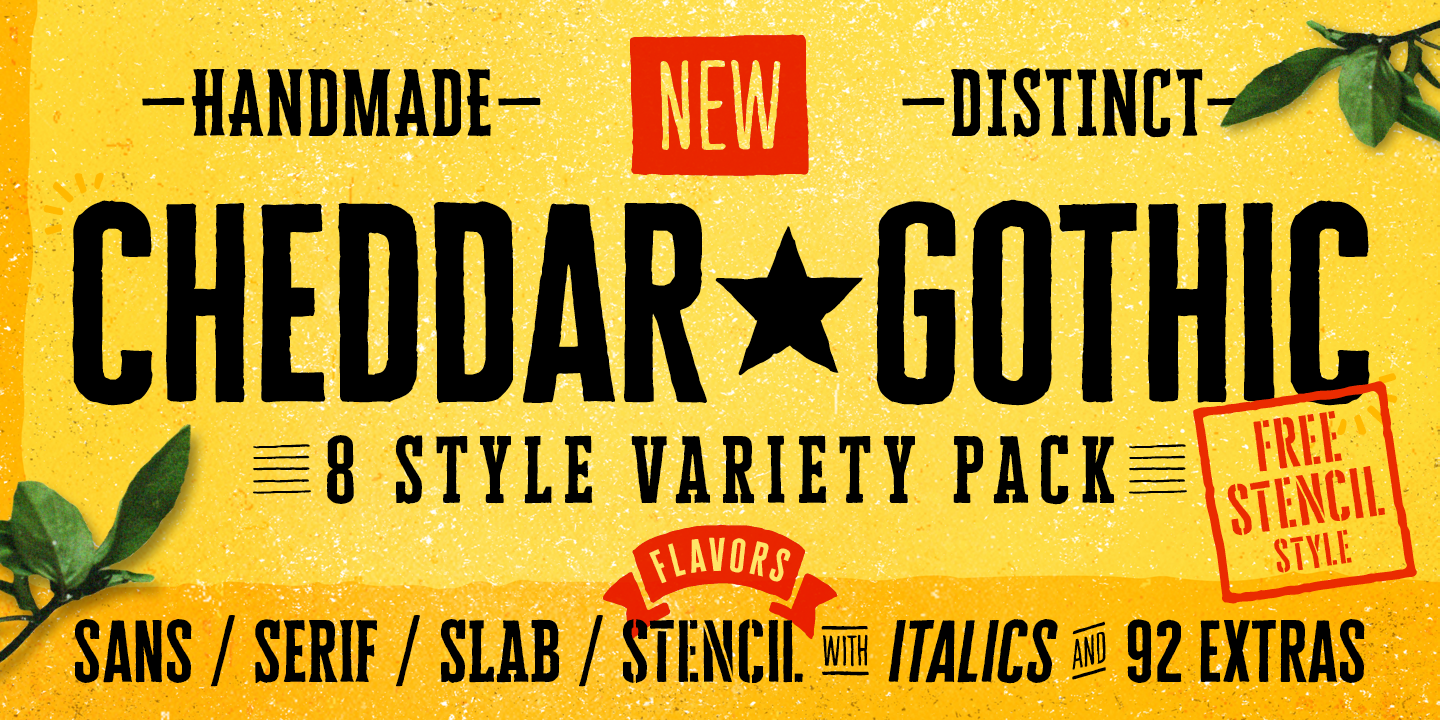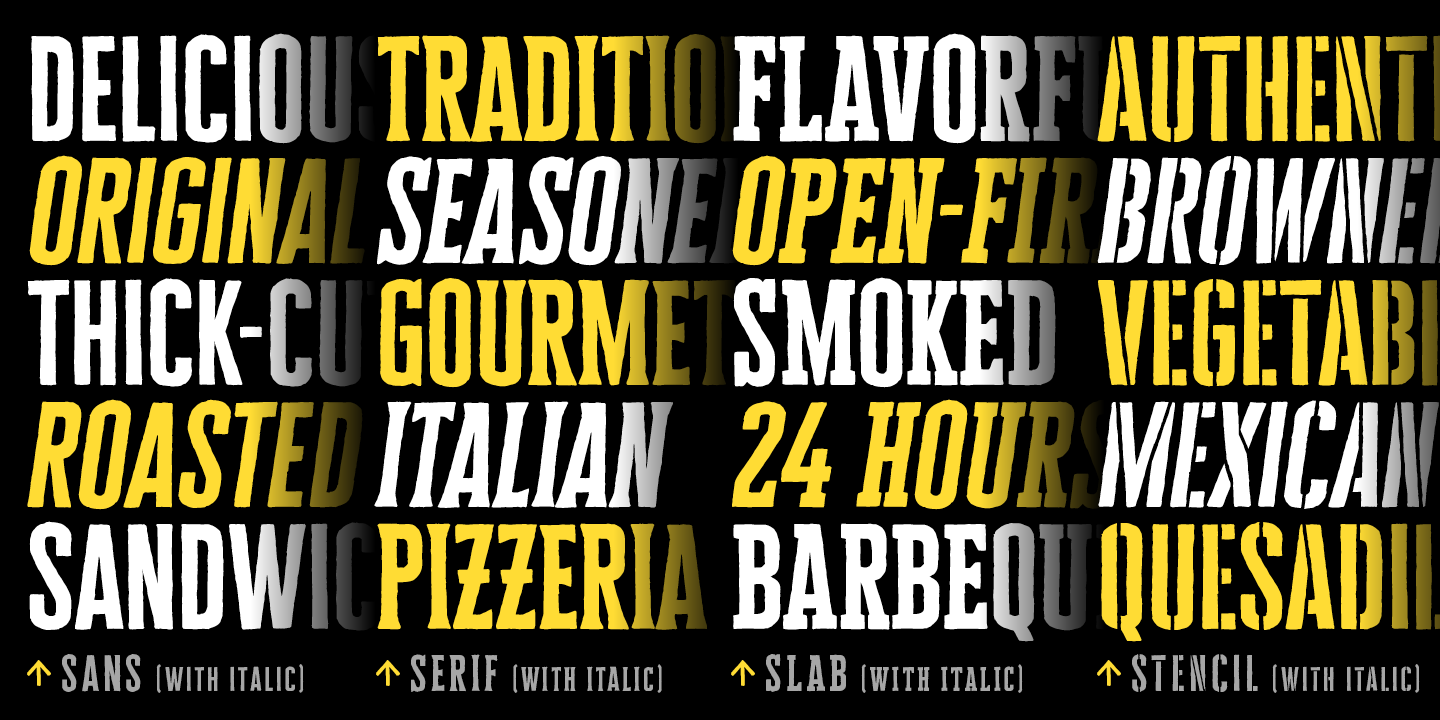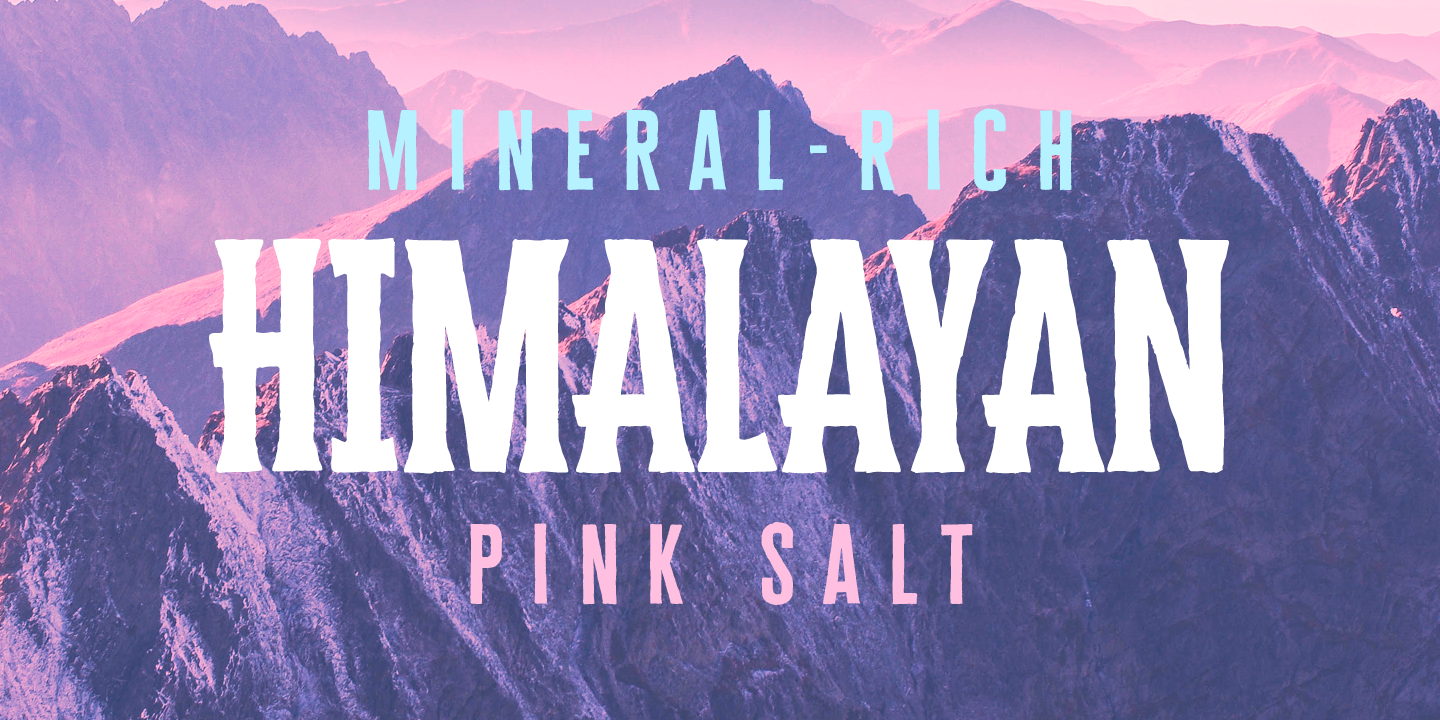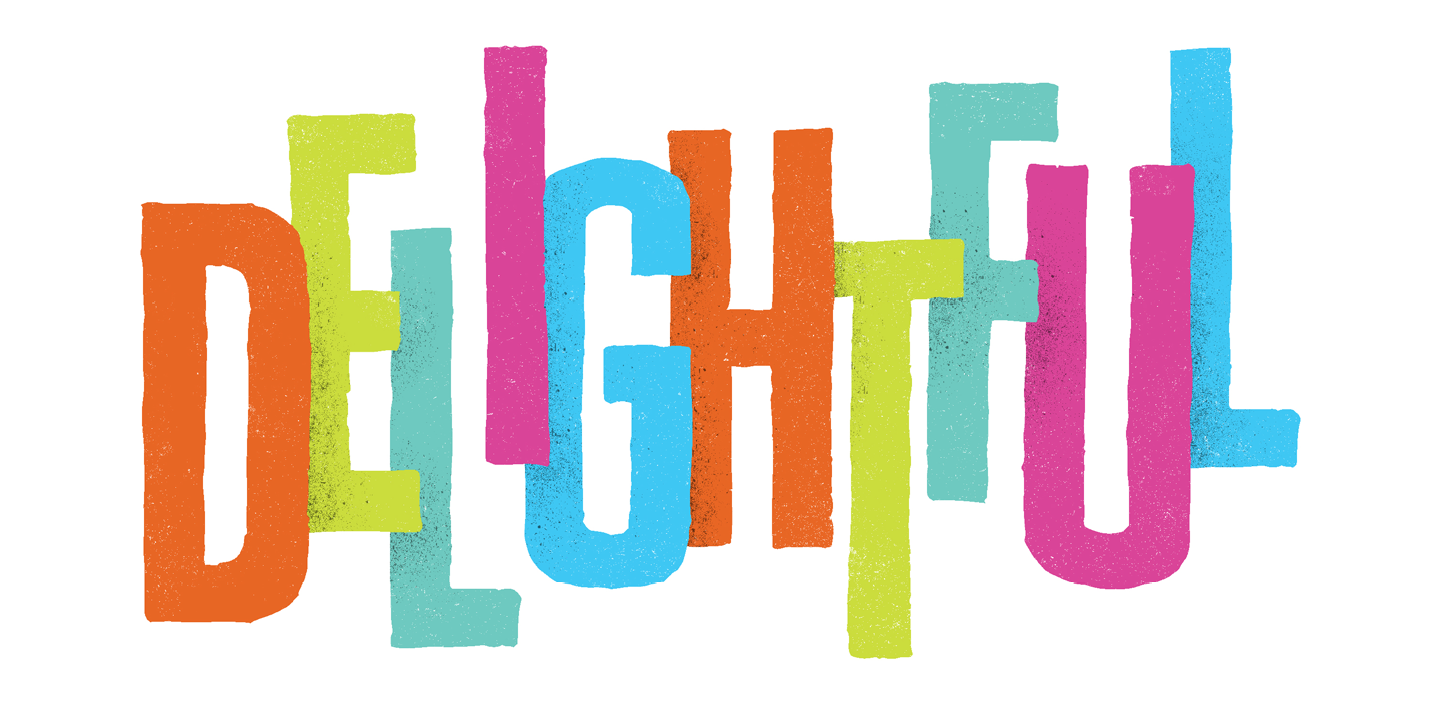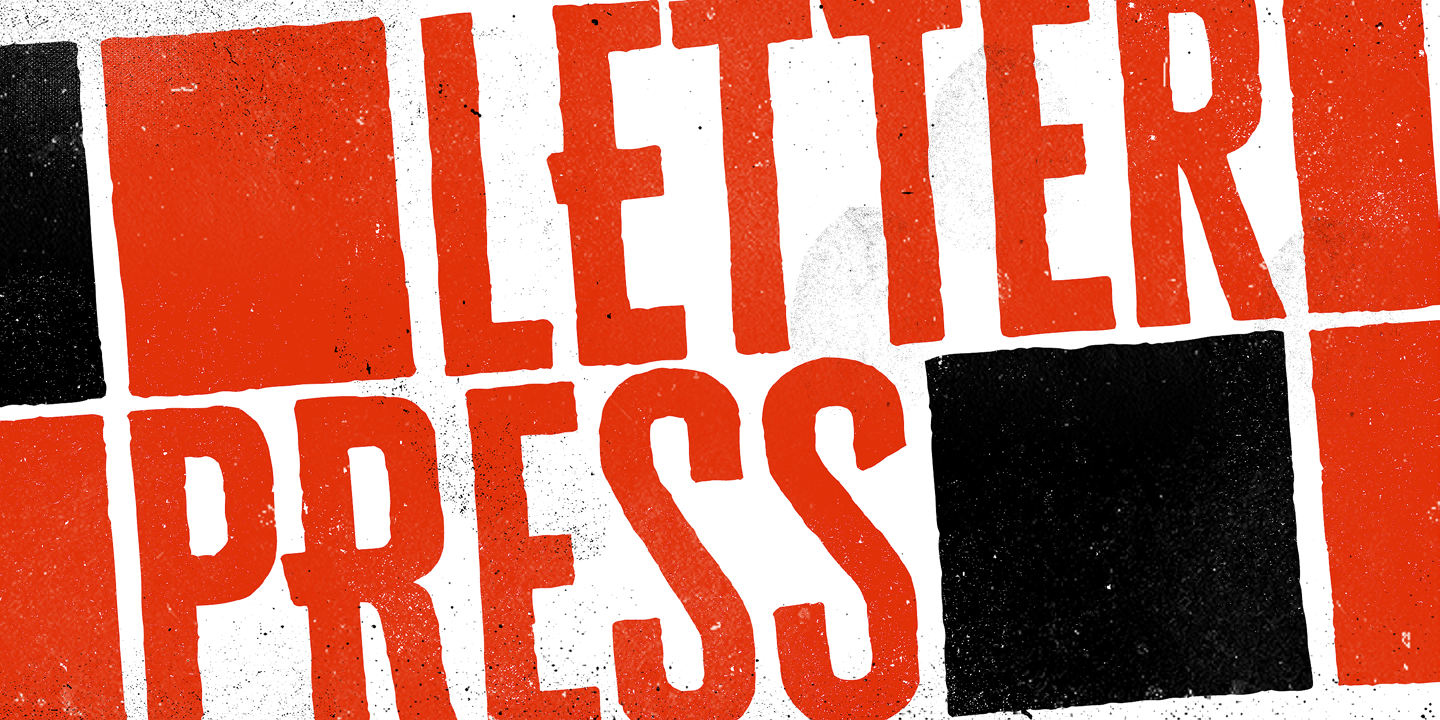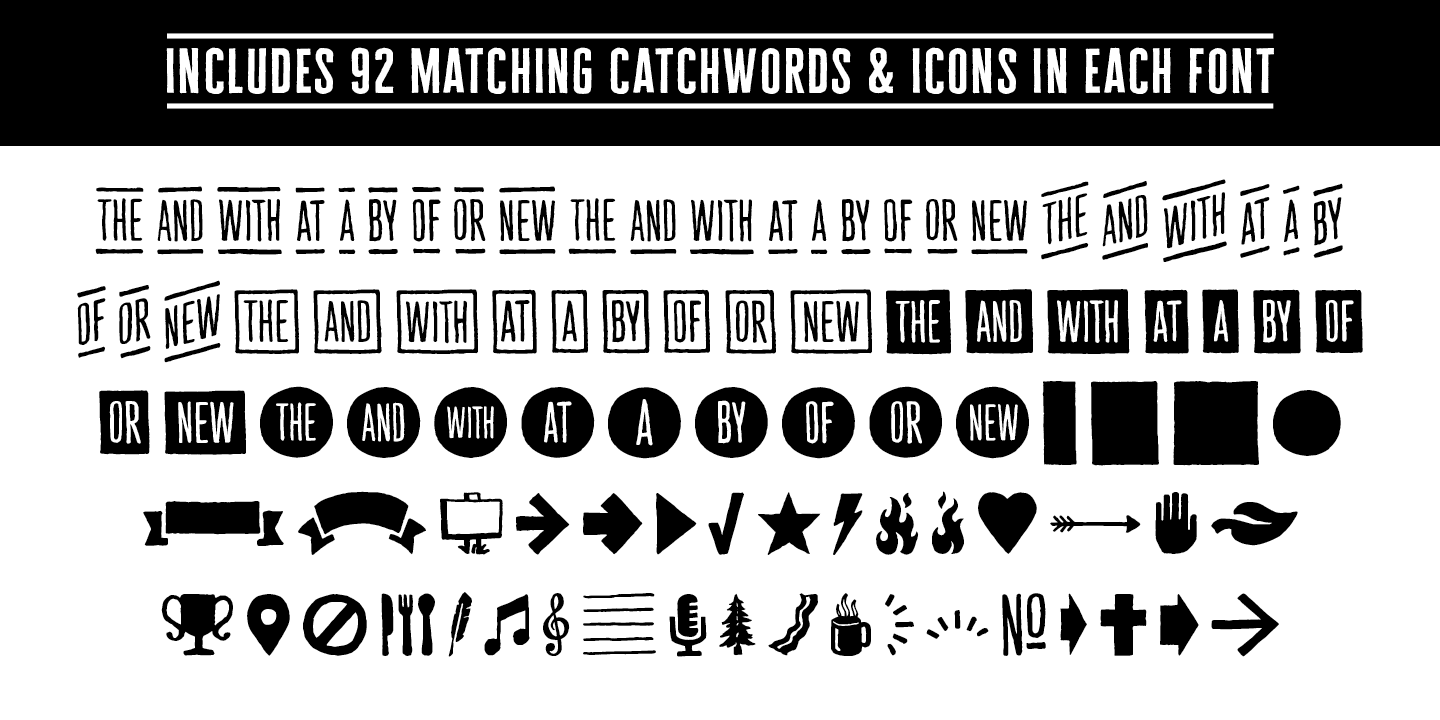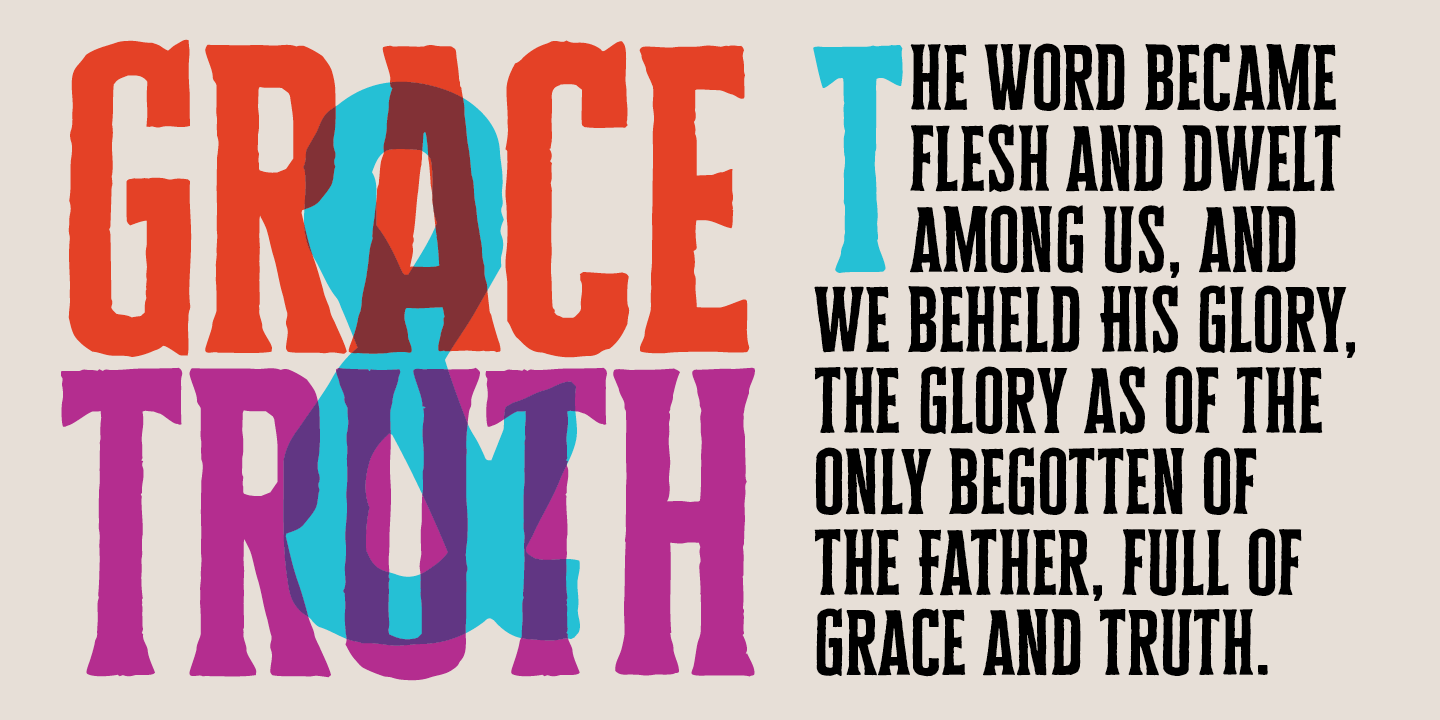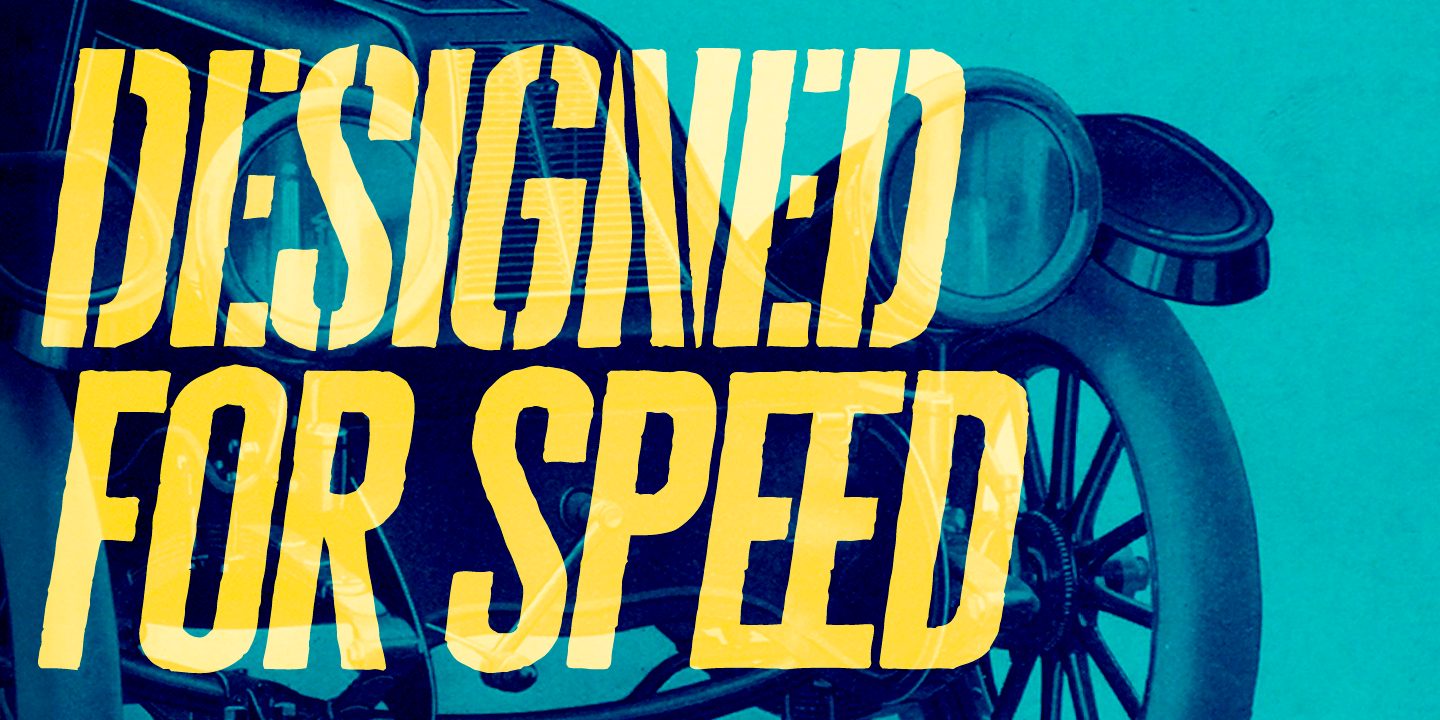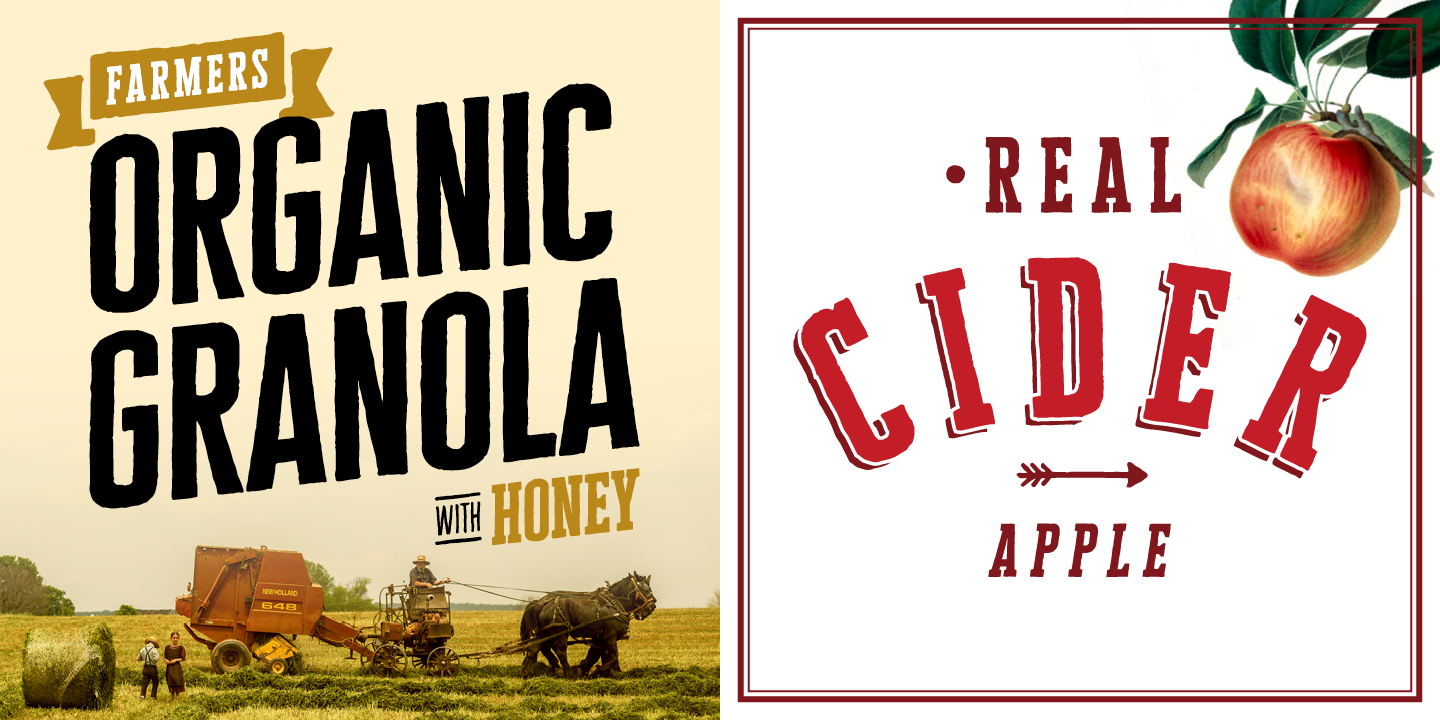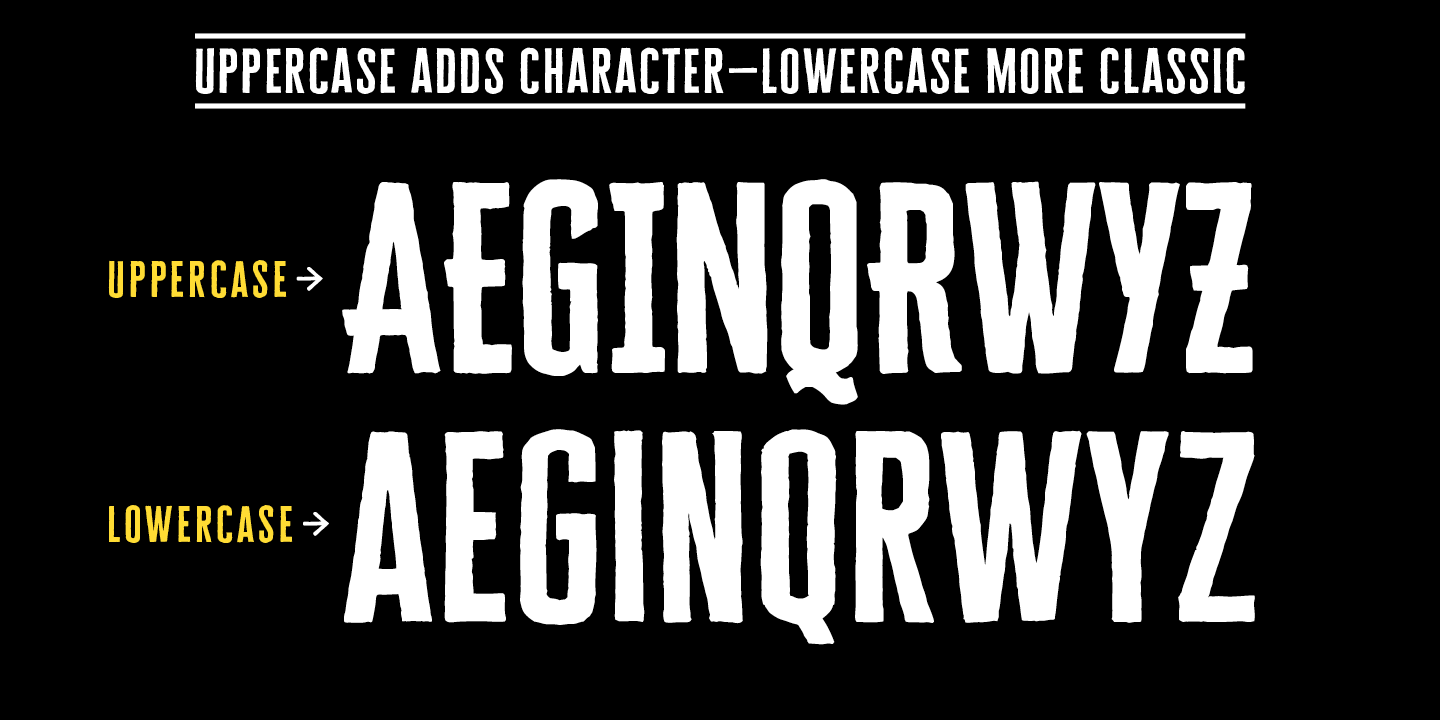
Cheddar Gothic is a hand drawn, 8 style typeface family including Sans, Serif, Slab, and Stencil (free) with Italics. Each font also includes 92 matching catchwords and icons to quickly add variety and interest to your designs. Great for a variety of uses: packaging, posters, t-shirts, stamps, branding, headlines, billboards, websites, etc.
An all caps family, simply switch between upper and lowercase for alternates. Choose lowercase for a classic, condensed look; choose uppercase for a little more character, including extended crossbars and sliced terminals. The individual styles are all based on the same structure, so they work well to mix and match with each other to best fit the occasion.